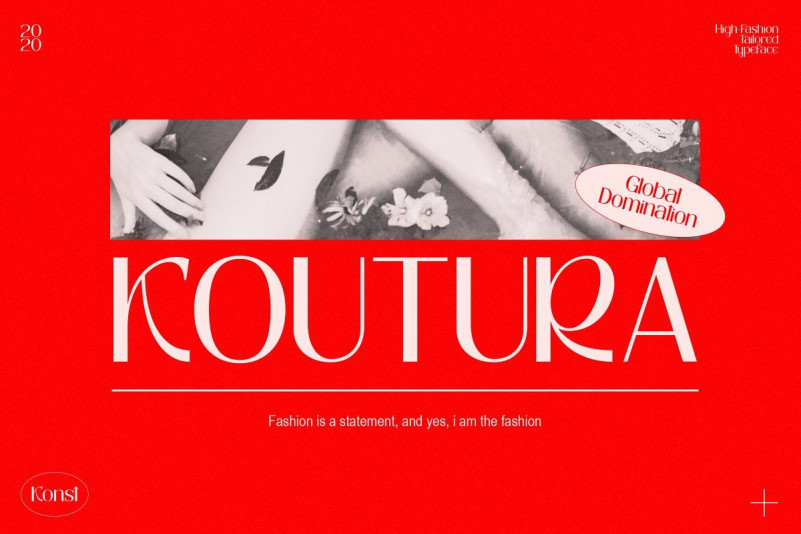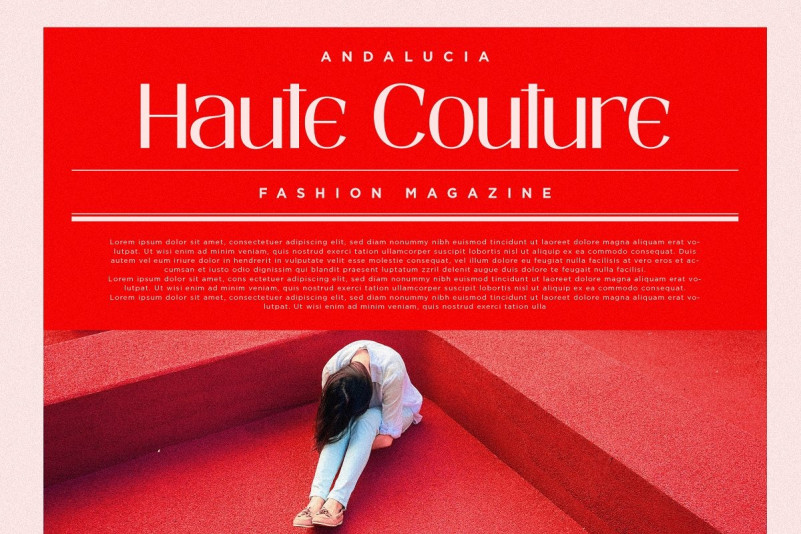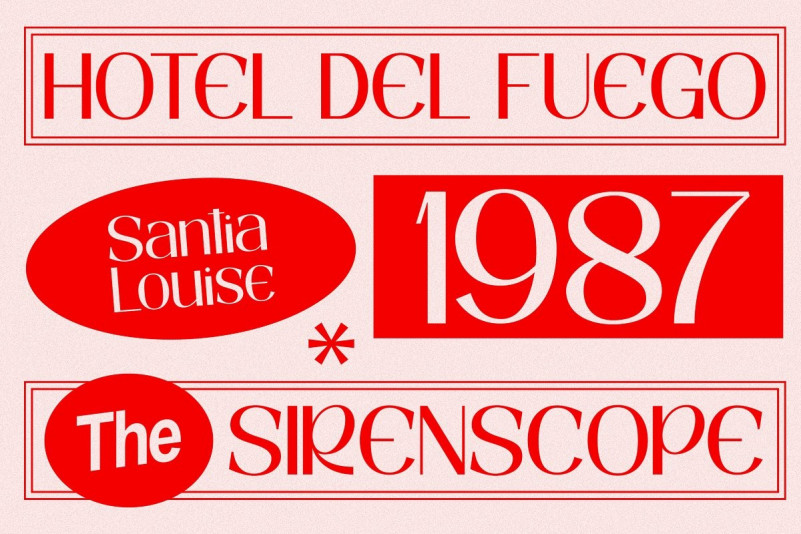
KOUTURA FONT
Everybody has their own message. Everybody’s different, everybody wants to be remarkable. Eyes catch everything from first sight. Fashion is a statement.
Elevate your persona higher, classier, with KOUTURA. A tailored high-fashioned font to put make-up on your visual works. Make your fashion branding, logo, poster, clothing, magazine, lookbook, mood board, boutique glam in a secs after you type out the words straight from your keyboard.